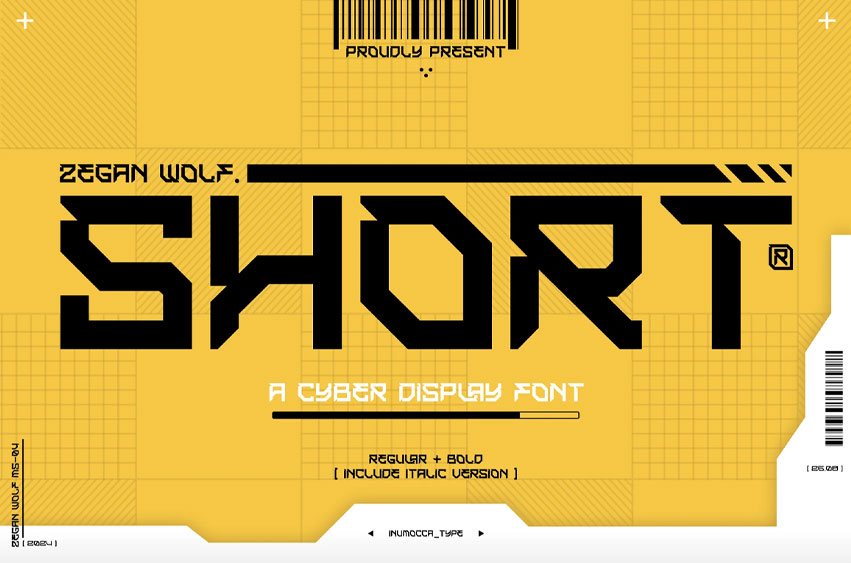
ZW Short Font is a Cyber Display Font Inspiration by Game Poster, futuristic design, Modern Technology, Synthwave, Sci-fi Movie Poster, science and Space Theme. Really great font to covering your Project, like poster Game, mecha poster, logotype, Website Interface, Magazine, Branding, Logos, and more your project design.